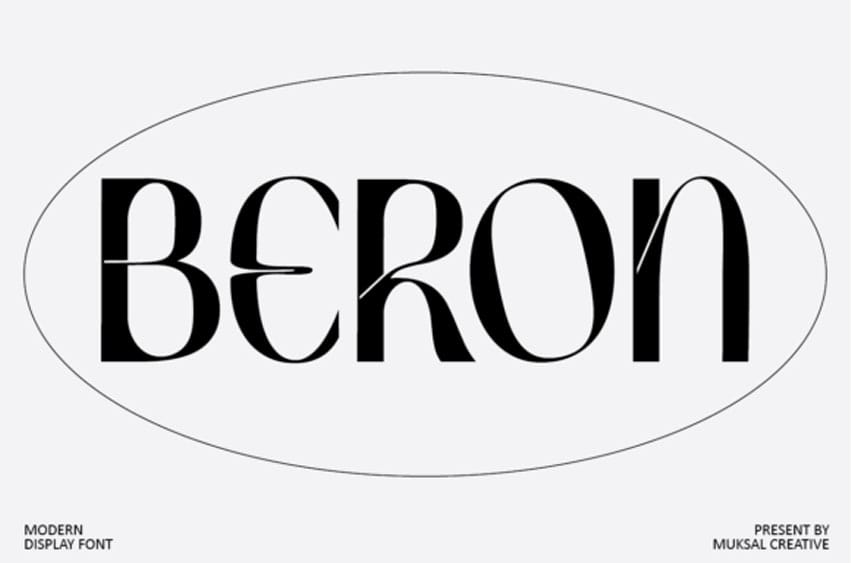
Beron Font is a retro and stylish display font that brings a touch of nostalgia to any design.
Its bold letterforms and vintage-inspired details make it perfect for posters, logos, or anything that needs a touch of retro flair.